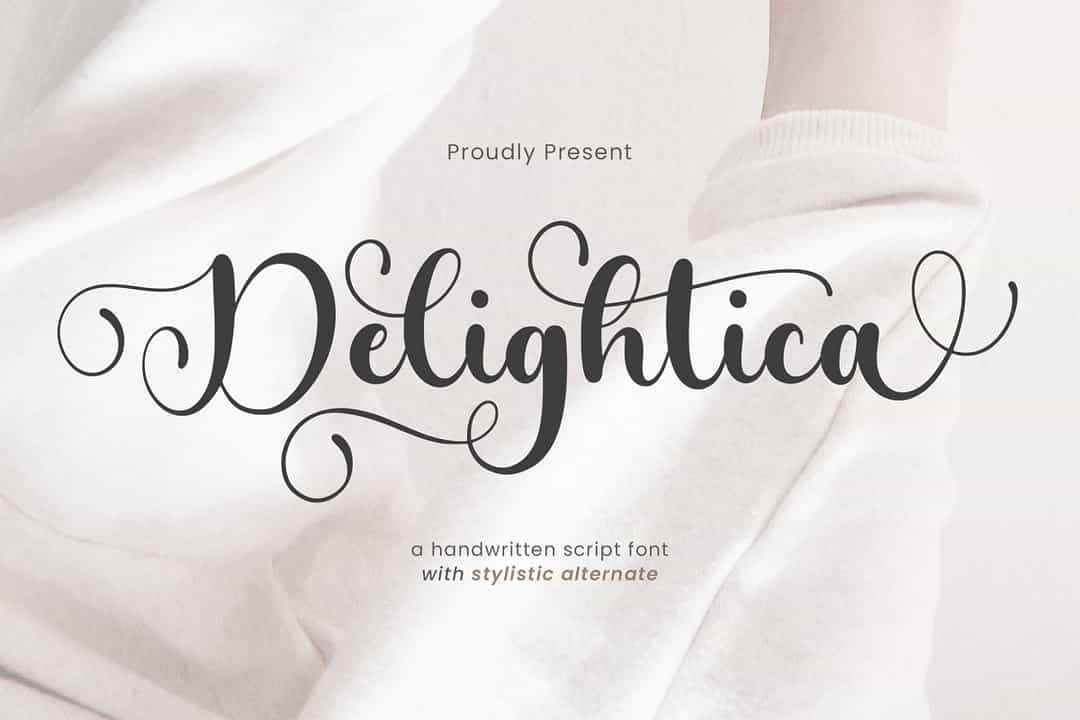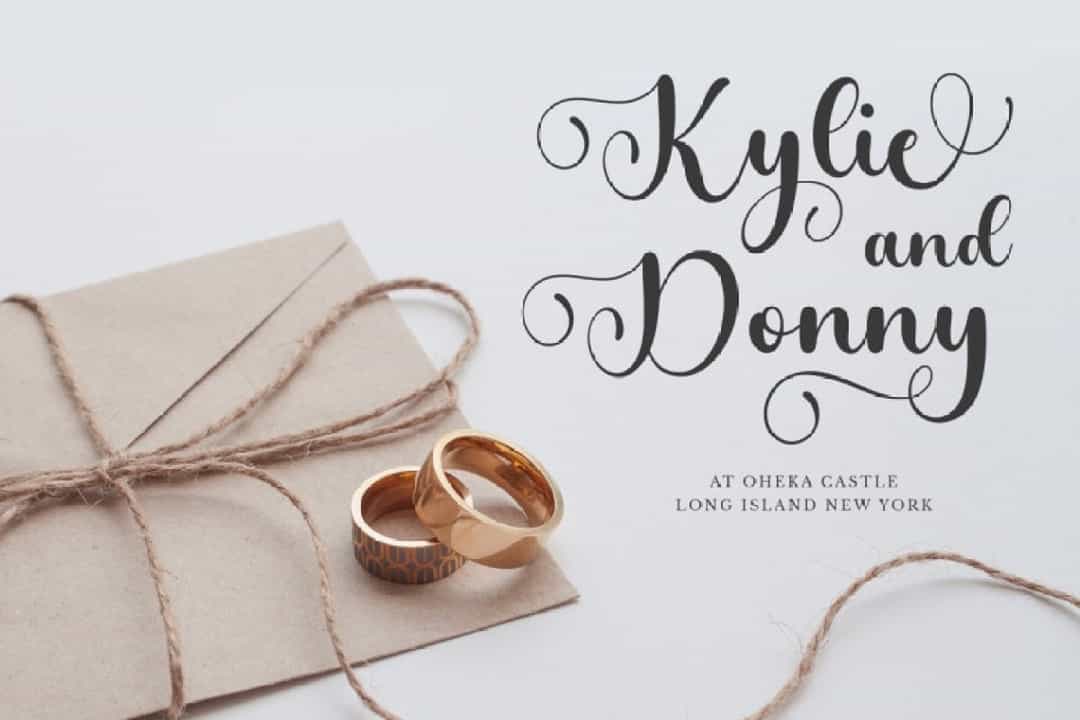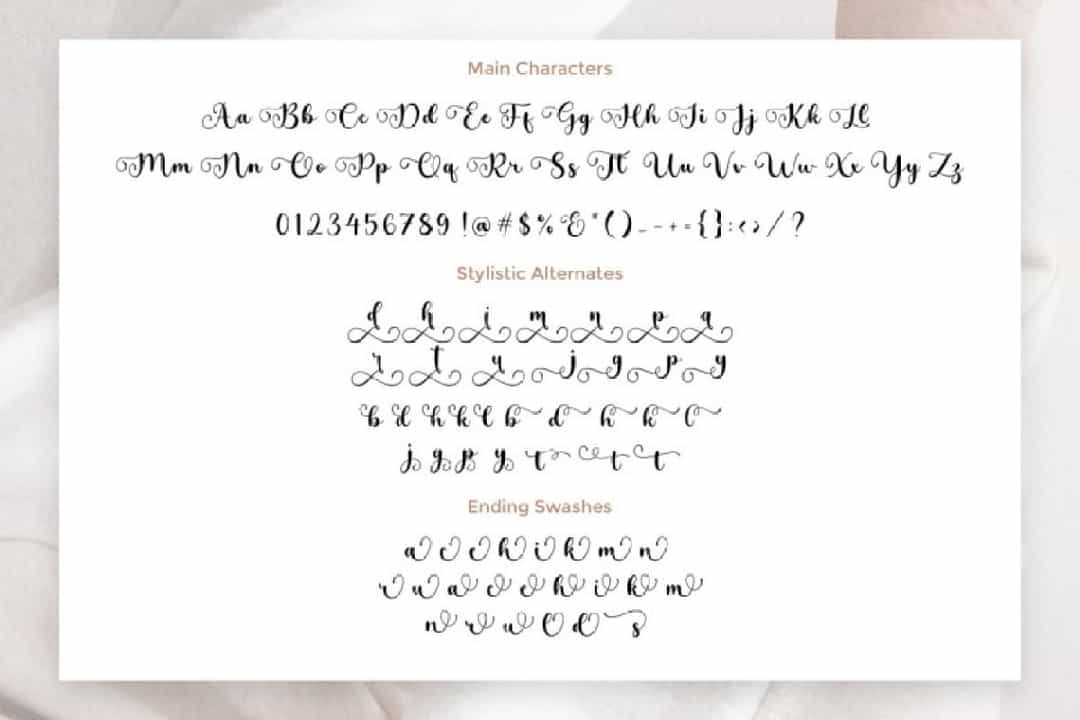
Discover Delightica Font, part of the Calligraphy Handwritten collection—a versatile and unique font perfect for adding a personal touch to your projects. Download it for free and enjoy crafting designs with style, from invitations to social media posts. This font is available exclusively for personal use, giving you the freedom to create without limits. Unlock your creativity with Delightica Font today!
Delightica can be described as an elegant script font designed with a touch of class. No matter if it’s for Instagram posts or personal projects – Delightica will transform any idea into art!